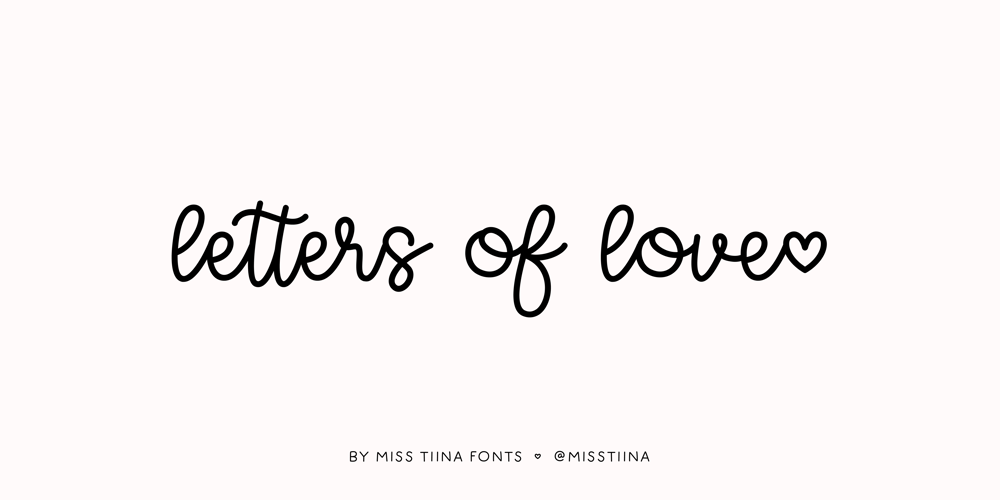
MTF Letters of Love
MTF Letters of Love font
MTF Letters of Love Font Family was designed by Tina Raparanta and published by Miss Tiina Fonts. MTF Letters of Love contains 1 styles and family package options. Immerse yourself in the exquisite world of typography with Letters of Love – an artistically crafted, handwritten script font. Carrying a charming blend of elegance and personality, Letters of Love introduces a collection of delightful ligatures. This font stands out for its unique infusion of catch-phrases and playful doodles, evoking a sense of nostalgic charm. Letters of Love is more than just a font – it creatively mirrors heartfelt emotions, making it a perfect choice for those looking to bring a personal touch to their designs.